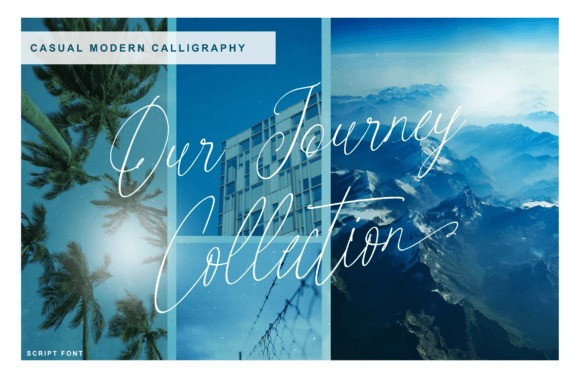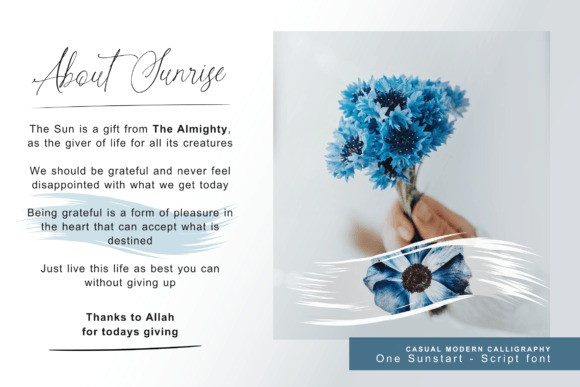
One Sunstart Font
One Sunstart Script font is the perfect combination of sophistication and simplicity. Its clean lines and gentle curves give it a classic look, while its unique design elements add a touch of creativity and personality. Remember that the font is PUA encoded, meaning that you can access all delightful glyphs and swashes effortlessly.